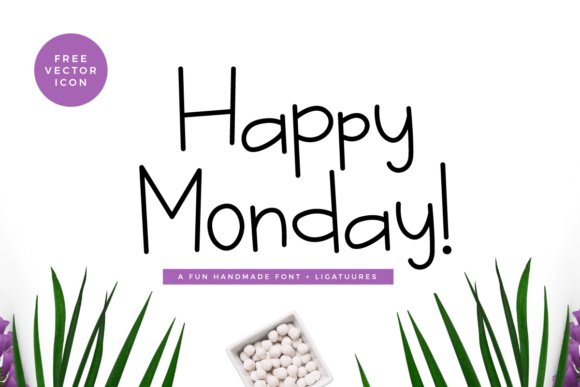
The Perfect Kick-Start to Your Week
Monday mornings – the bane of many a creative’s existence. But what if you could turn that dreaded wake-up call into a reason to smile? For designers, a fresh start means a chance to inject some excitement into their work. And that’s exactly what the Happy Monday Font is all about.
This adorable sans serif font is the perfect way to add a playful touch to your designs. Whether you’re crafting a headline or body text, Happy Monday Font is sure to bring a smile to your viewer’s face. And that’s exactly what makes it so valuable for designers – it’s a font that can instantly elevate your work and make it stand out from the crowd.
- Font Family: A custom-designed font family, ideal for modern and playful designs.
- Unique Characteristics: Features a unique, handwritten style with subtle imperfections, adding a touch of personality to designs.
I recently had the chance to work with the Happy Monday Font, and I must say it’s a font that’s sure to bring a smile to your face. ✨ The playful, rounded edges and cheerful vibes of this font make it perfect for creating a welcoming atmosphere in your designs.
Here are a few things that work well:
- ✨ Great for headings and titles, the font’s bold and eye-catching style is sure to grab attention.
- ✨ The font’s rounded edges make it easy to read, even at smaller font sizes.
- ✨ The font’s cheerful vibe makes it perfect for creating a fun and playful atmosphere in your designs.
- ⚠️ The font may not be the best choice for formal or professional designs, as its playful style may come across as unprofessional.
- ⚠️ The font’s rounded edges can sometimes make it difficult to read at very small font sizes.
Overall, I think the Happy Monday Font is a great addition to any designer’s toolkit. While it may have some limitations, its playful and cheerful style makes it perfect for creating fun and engaging designs. With a little creativity and experimentation, you can unlock the full potential of this font and create some truly amazing designs.
The Happy Monday Font is ideal for:
– Creating motivational quotes and posters
– Designing social media graphics and ads
– Developing brand identities and logos
– Creating educational materials and presentations
– Adding a playful touch to business documents and reports
Alternatives to Happy Monday Font
Pacifico is a beautiful, elegant script font that is perfect for creating a welcoming and friendly atmosphere. It is ideal for use in headings, titles, and quotes. Pacifico is similar to Happy Monday Font in its cursive style, but it has a more refined and sophisticated look.
Great Vibes is a modern and stylish script font that is great for creating a fun and energetic vibe. It is perfect for use in headings, titles, and social media posts. Great Vibes is similar to Happy Monday Font in its playful and upbeat feel, but it has a more dynamic and adventurous look.
Dancing Script is a lively and energetic script font that is perfect for creating a lively and engaging atmosphere. It is ideal for use in headings, titles, and advertisements. Dancing Script is similar to Happy Monday Font in its playful and dynamic feel, but it has a more exaggerated and whimsical look.
Alex Brush is a beautiful and elegant script font that is perfect for creating a sophisticated and refined atmosphere. It is ideal for use in headings, titles, and quotes. Alex Brush is similar to Happy Monday Font in its cursive style, but it has a more delicate and feminine look.